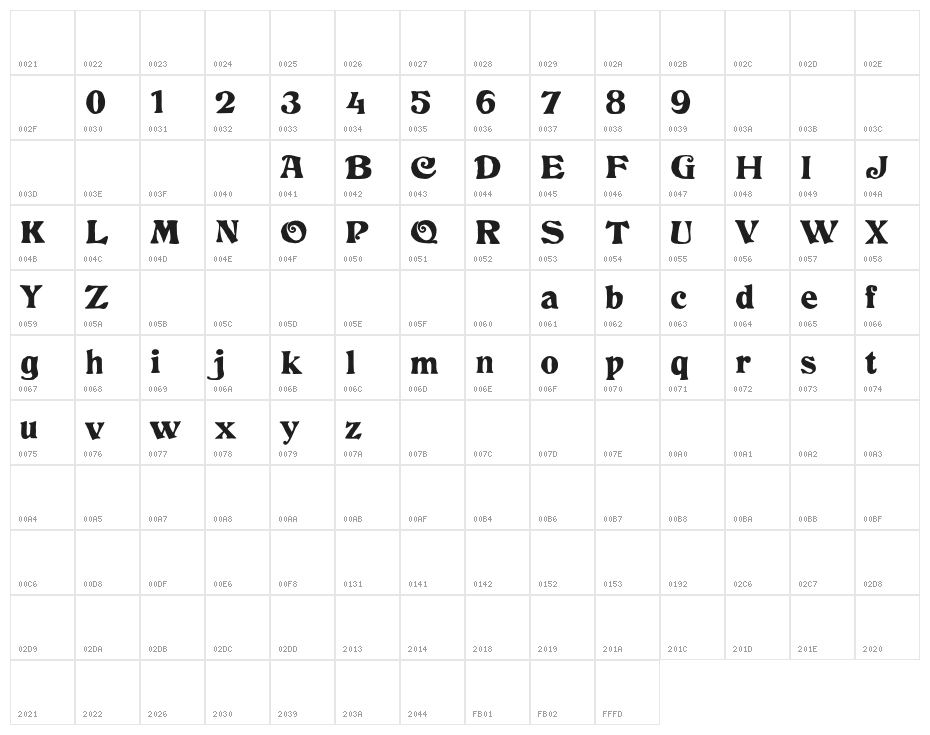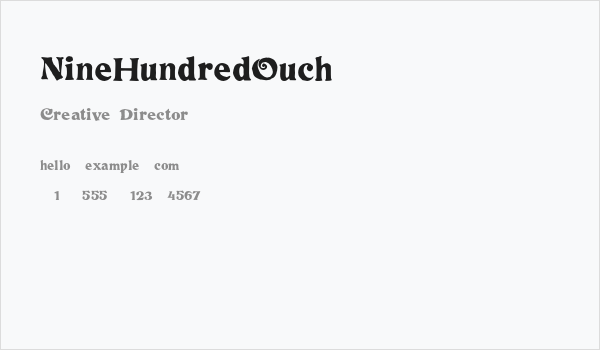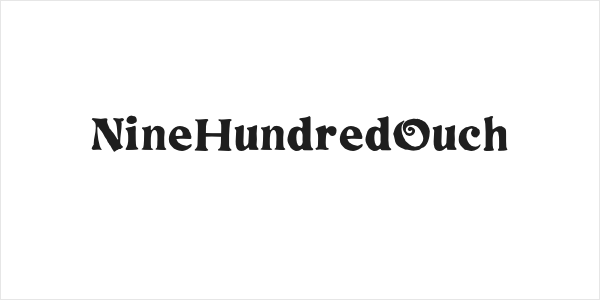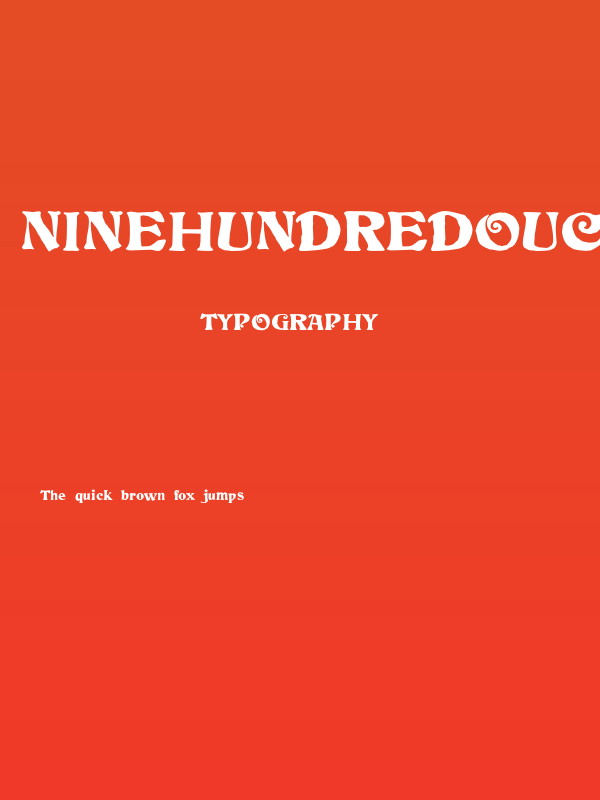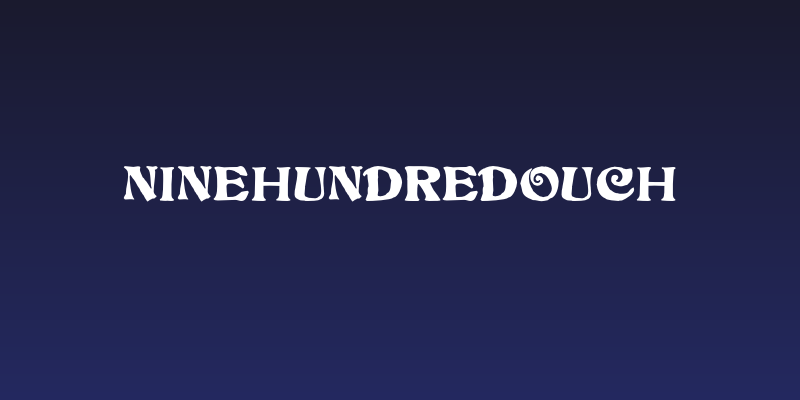
NineHundredOuch Font
NineHundredOuch Description
This font features a bold and playful design with a whimsical touch. The characters are uniquely crafted with varying stroke thicknesses, giving them a lively and dynamic appearance. The uppercase letters have a strong presence, while the lowercase letters maintain a consistent style, adding to the overall charm. The numbers are equally bold, ensuring readability and impact. The special characters are designed to match the playful nature of the font, making it suitable for creative and fun projects. The font's distinct style makes it ideal for eye-catching designs.